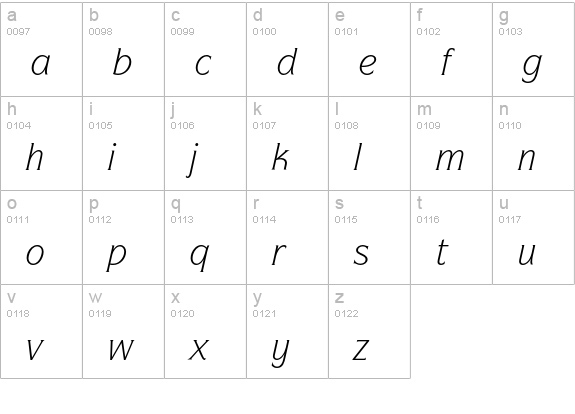
SymbolEF-BookItalic font is a stylish and elegant typeface that brings a touch of sophistication to any design project. With its sleek italics and graceful curves, this font exudes a sense of modernity and professionalism. The italicized characters add a dynamic flair to your text, making it perfect for headings, titles, and emphasis. What sets SymbolEF-BookItalic font apart is that it is available for free download at FontsMarket.com. This means that you can easily access this high-quality font without any cost, making it a valuable addition to your font collection. Whether you're working on a creative project or a professional document, SymbolEF-BookItalic font is a versatile choice that will elevate your design to the next level.